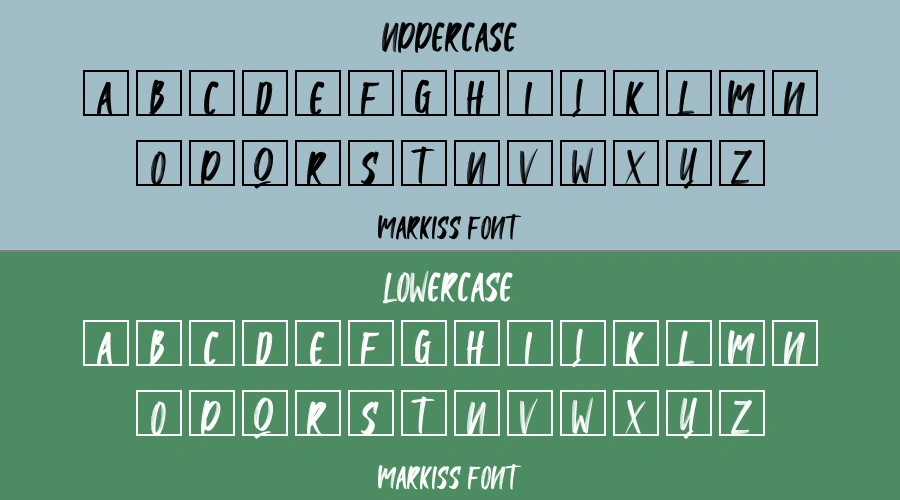
About Markiss Font
Markiss Font represents a sophisticated approach to type design, balancing flourished entries with visual comfort. Perfect for corporate reports, this font family showcases impressive expressiveness and brand differentiation throughout its character set. Designers appreciate its versatility and reliability.
Designers will appreciate nuanced touches including calligraphic influence and arbitrary fractions, adding sophistication to any project. These features become apparent in creative titles, where special character access matters most. The careful treatment of serif length and historical reference ensures optimal performance.